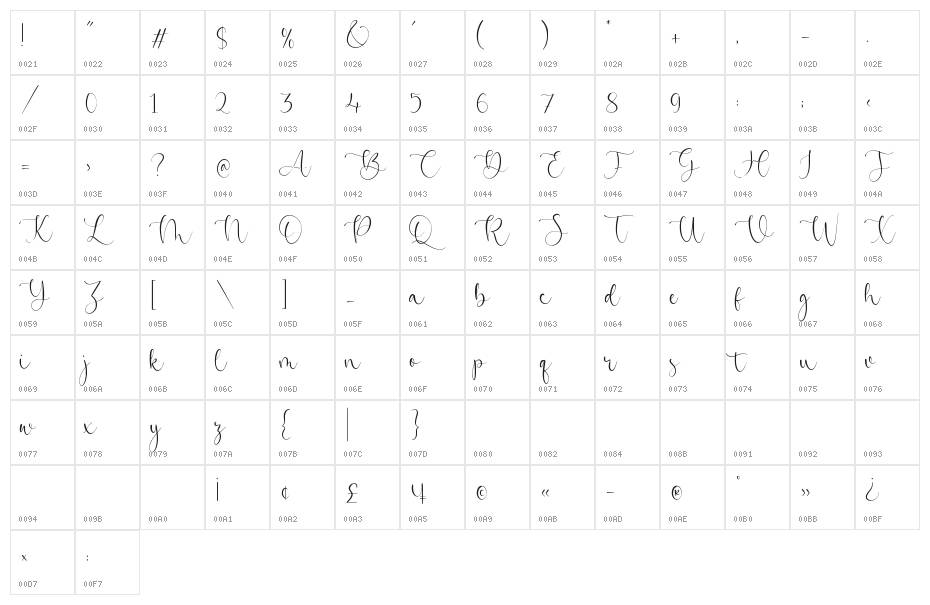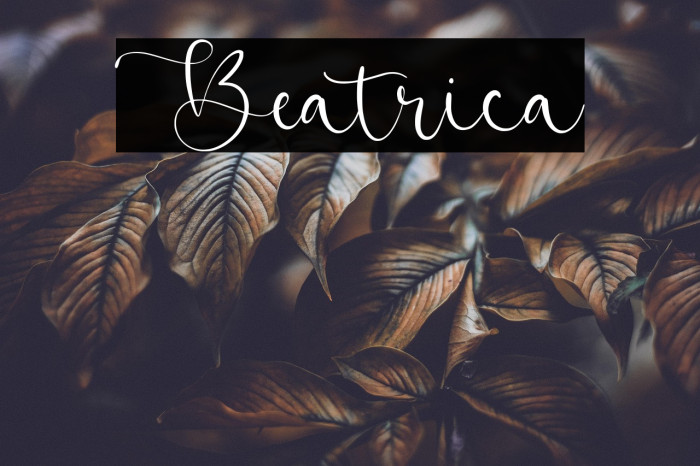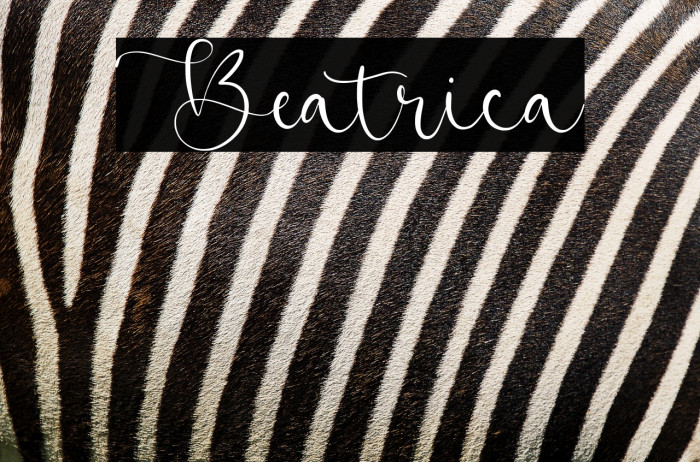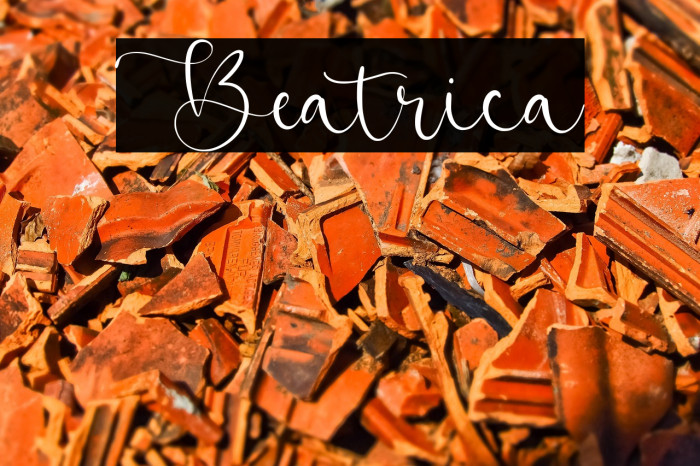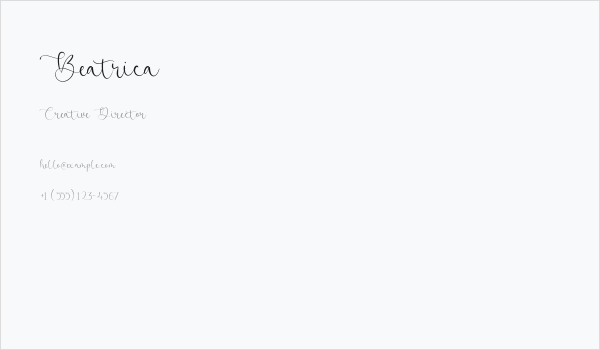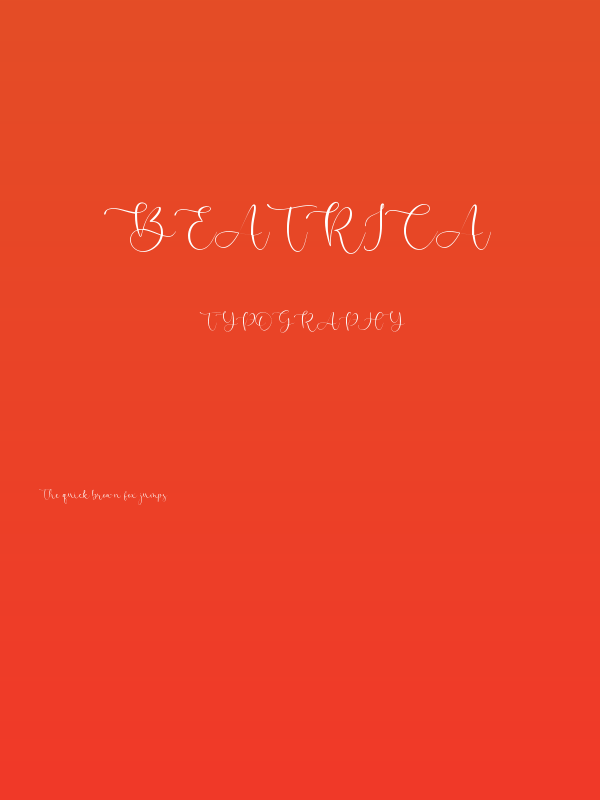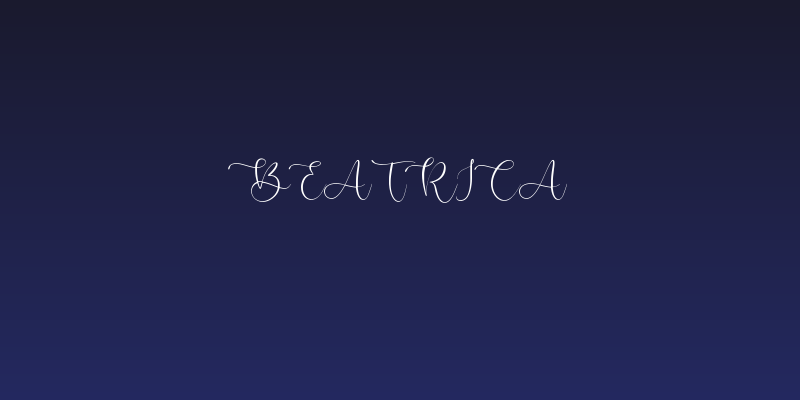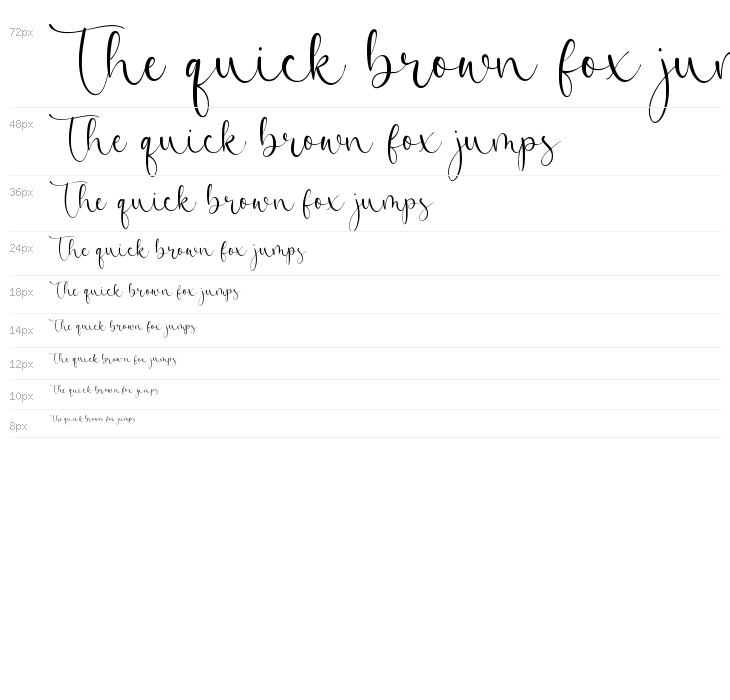
Beatrica Font
Beatrica Description
This elegant script font features flowing, interconnected letters that exude a sense of sophistication and grace. The uppercase letters are characterized by their sweeping curves and loops, creating a harmonious and fluid appearance. The lowercase letters maintain a similar style, with delicate strokes and a consistent slant that enhances readability while retaining a decorative flair. The numerals are designed to match the overall aesthetic, with a graceful yet clear presentation. Special characters are thoughtfully crafted to complement the alphabet, ensuring a cohesive look across all text. This font is ideal for projects that require a touch of elegance and style, such as wedding invitations, branding, and high-end product packaging.
| Overall Style | Elegant, Decorative |
| Proposed Projects | Wedding invitations, branding, high-end product packaging, elegant stationery, and decorative headlines. |